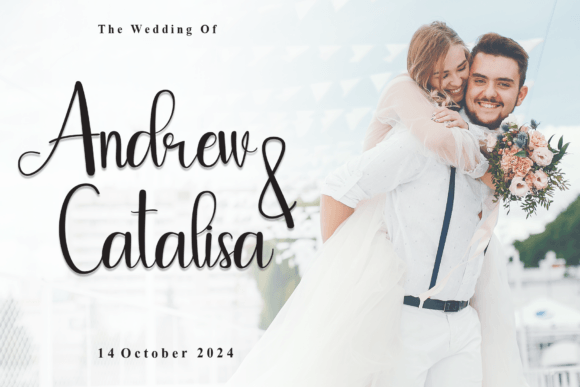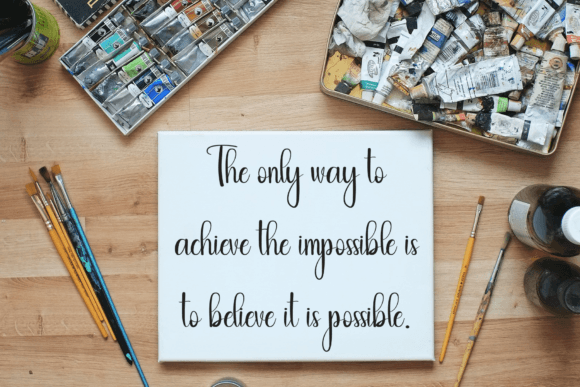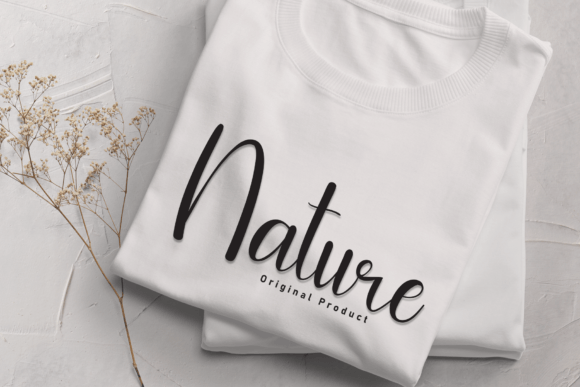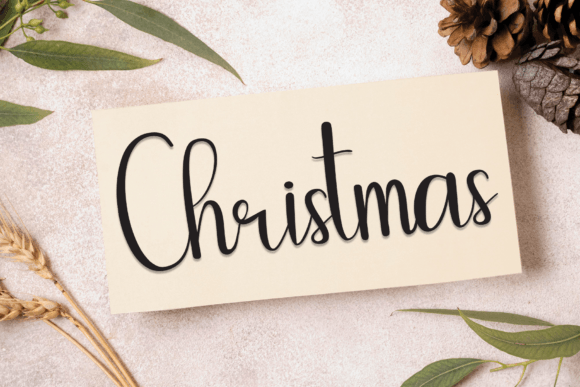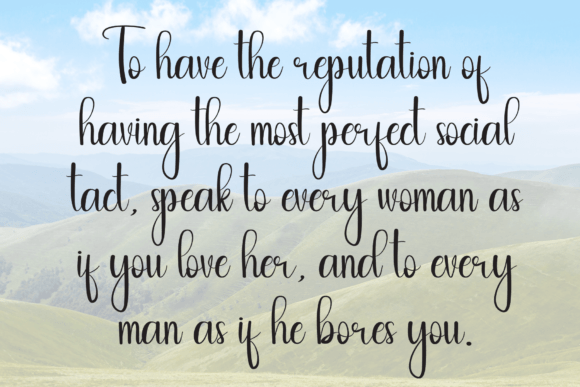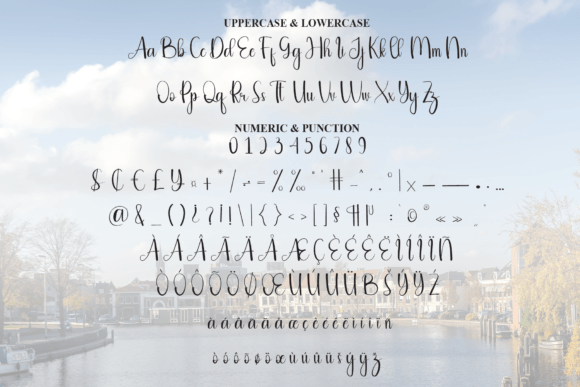
Introducing Amsterdam Font: The Ultimate Display Font for Creative Projects
Are you tired of using the same old fonts for your creative projects? Do you want to add a touch of whimsy and playfulness to your designs? Look no further than Amsterdam Font, a charming, friendly handwriting-styled display font that’s sure to delight. With its adorable and engaging style, this font is perfect for adding a sprinkle of joy to your wedding invites, cards, and any other design that craves a dash of personality.
The Characteristics of Amsterdam Font
Amsterdam Font is a handwriting-styled display font that’s designed to bring a sense of joy and playfulness to your designs. Its adorable and engaging style makes it perfect for a variety of creative projects, from wedding invitations and cards to posters and social media graphics. The font features:
- A friendly and approachable style that’s sure to engage your audience
- A whimsical and playful aesthetic that’s perfect for adding a touch of personality to your designs
- A relaxed and joyful aura that’s sure to make your designs stand out
The Benefits of Using Amsterdam Font
So why choose Amsterdam Font for your creative projects? Here are just a few benefits of using this delightful display font:
- Adds a touch of personality to your designs: With Amsterdam Font, you can add a dash of whimsy and playfulness to your designs, making them more engaging and memorable.
- Perfect for wedding invites and cards: The font’s friendly and approachable style makes it perfect for wedding invitations, cards, and other special occasion designs.
- Versatile and adaptable: Amsterdam Font can be used for a variety of creative projects, from posters and social media graphics to blog posts and website headers.
- Easily readable: Despite its playful style, Amsterdam Font is easily readable, making it perfect for designs that require a clear and concise message.
How to Use Amsterdam Font in Your Designs
Using Amsterdam Font in your designs is easy. Here are a few tips to get you started:
- Pair it with bold colors: Amsterdam Font looks great paired with bold, bright colors that match its playful and whimsical style.
- Use it for headings and titles: The font’s display style makes it perfect for headings and titles, where you want to make a bold statement.
- Add it to your branding: Consider using Amsterdam Font as part of your branding, where its friendly and approachable style can help to create a positive and engaging image.
Who is Amsterdam Font for?
Amsterdam Font is perfect for designers, crafters, and creatives who want to add a touch of personality to their designs. This includes:
- Wedding planners and stationery designers: Who want to create beautiful and unique wedding invitations and cards.
- Graphic designers: Who want to add a touch of whimsy and playfulness to their designs.
- Crafters and DIY enthusiasts: Who want to create handmade cards, invitations, and other paper crafts.
- Small business owners: Who want to create a positive and engaging brand image.
In conclusion, Amsterdam Font is a charming, friendly handwriting-styled display font that’s perfect for adding a sprinkle of joy to your creative projects. With its adorable and engaging style, this font is sure to captivate and engage your audience, while injecting your designs with infectious positivity and charm. So why not give it a try and see how it can elevate your designs to the next level?